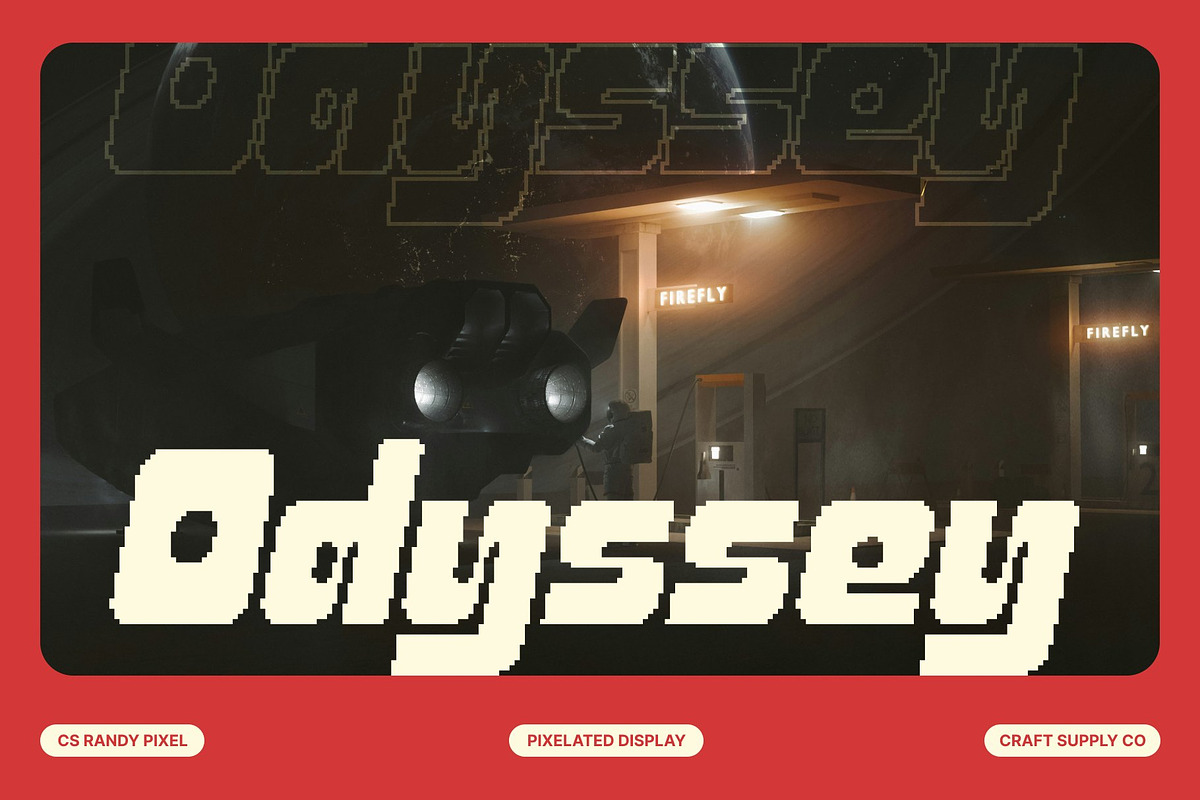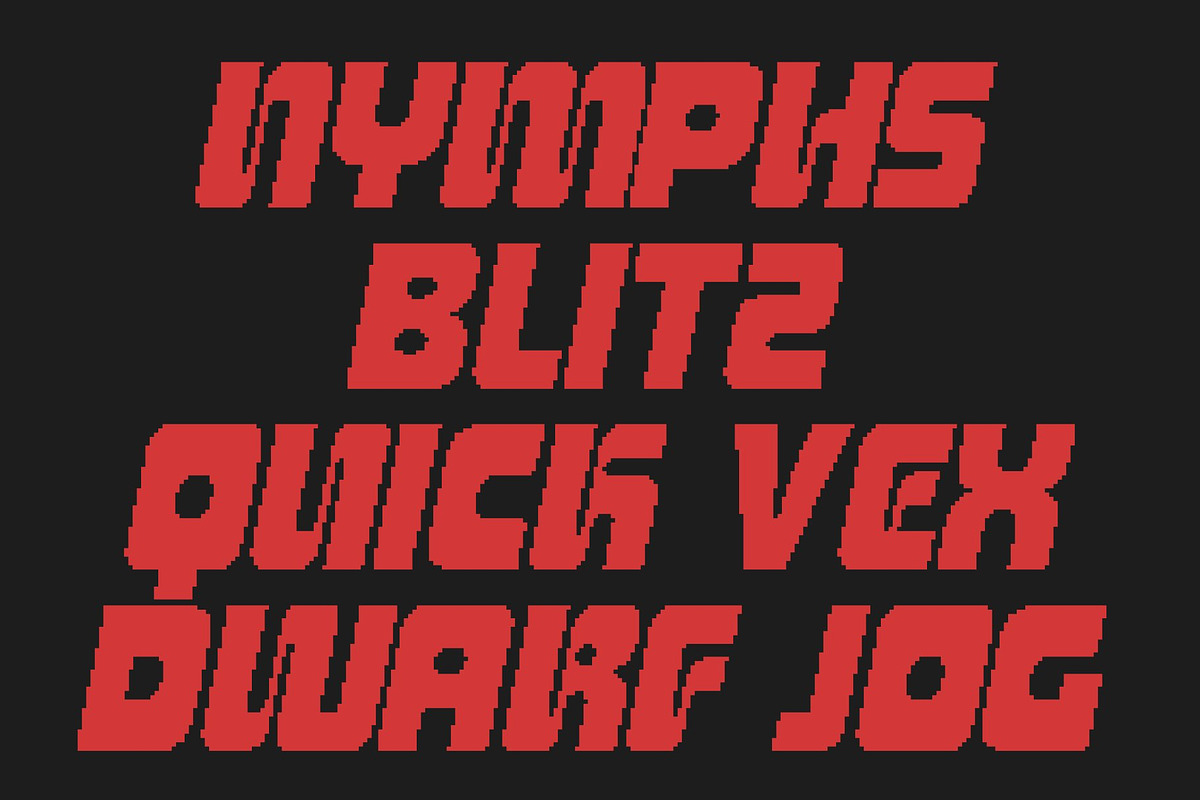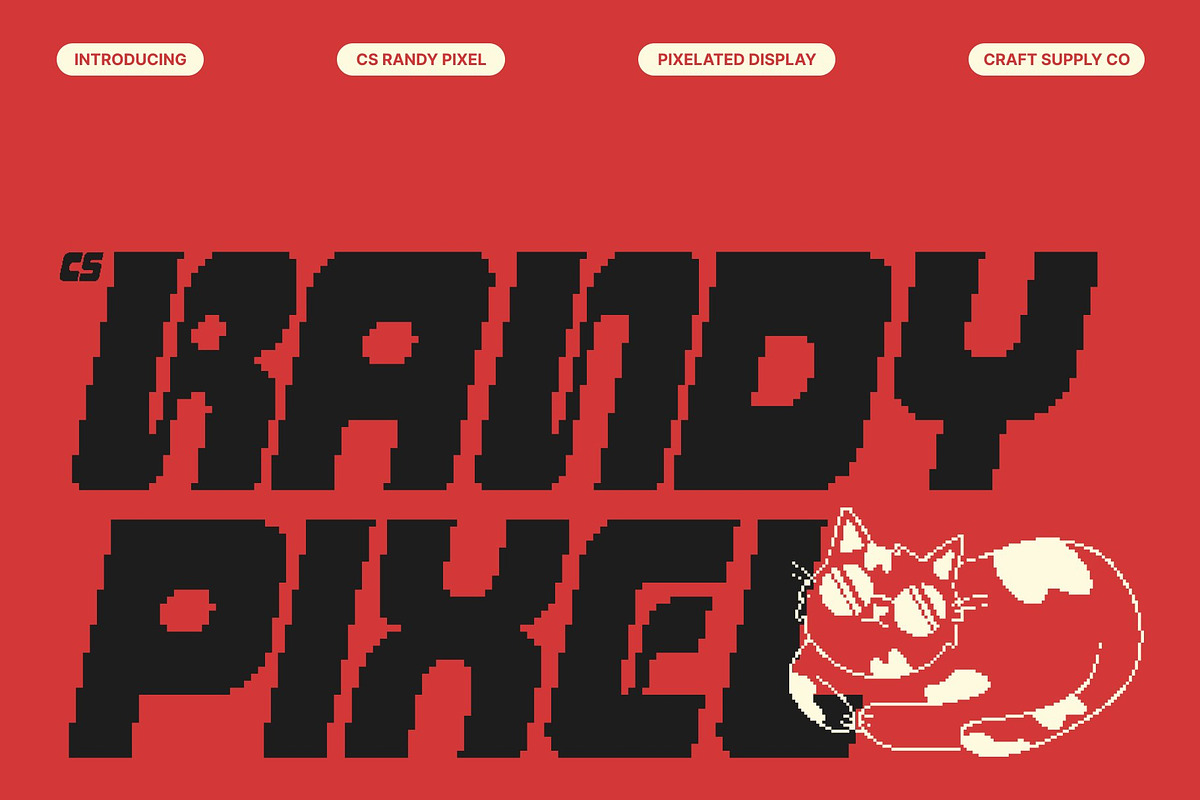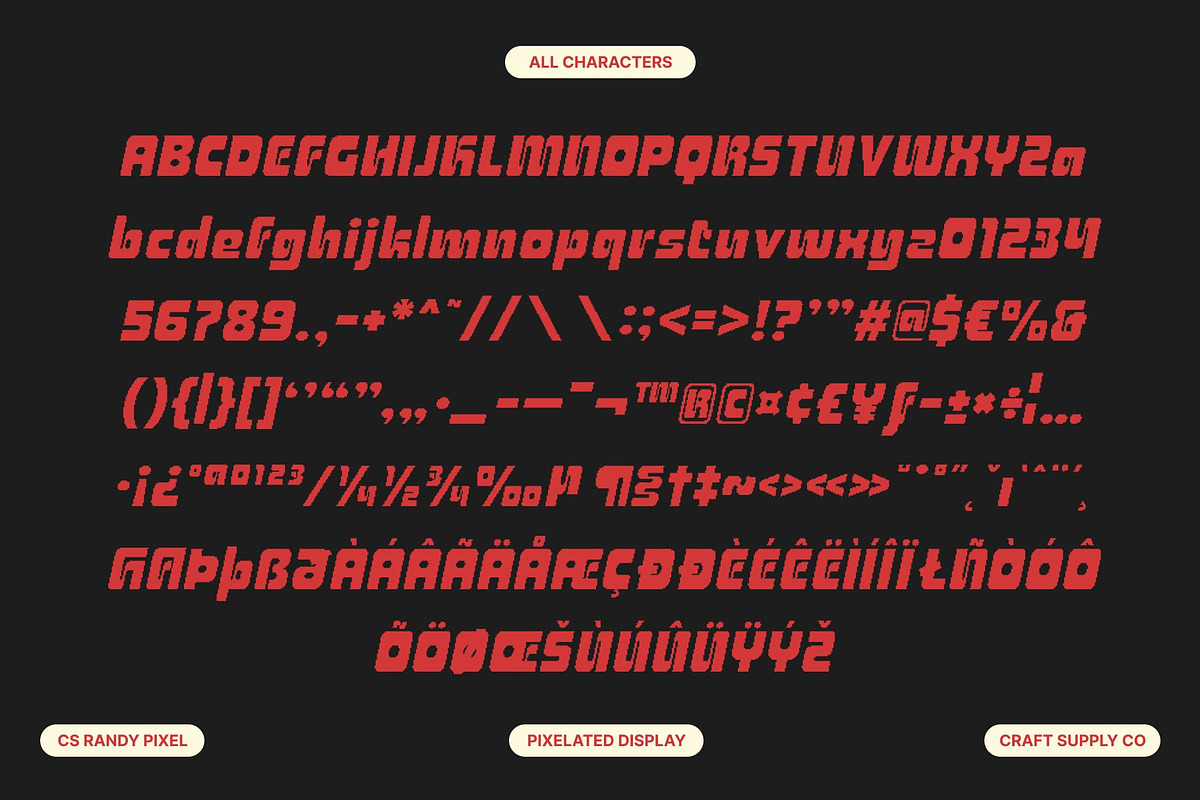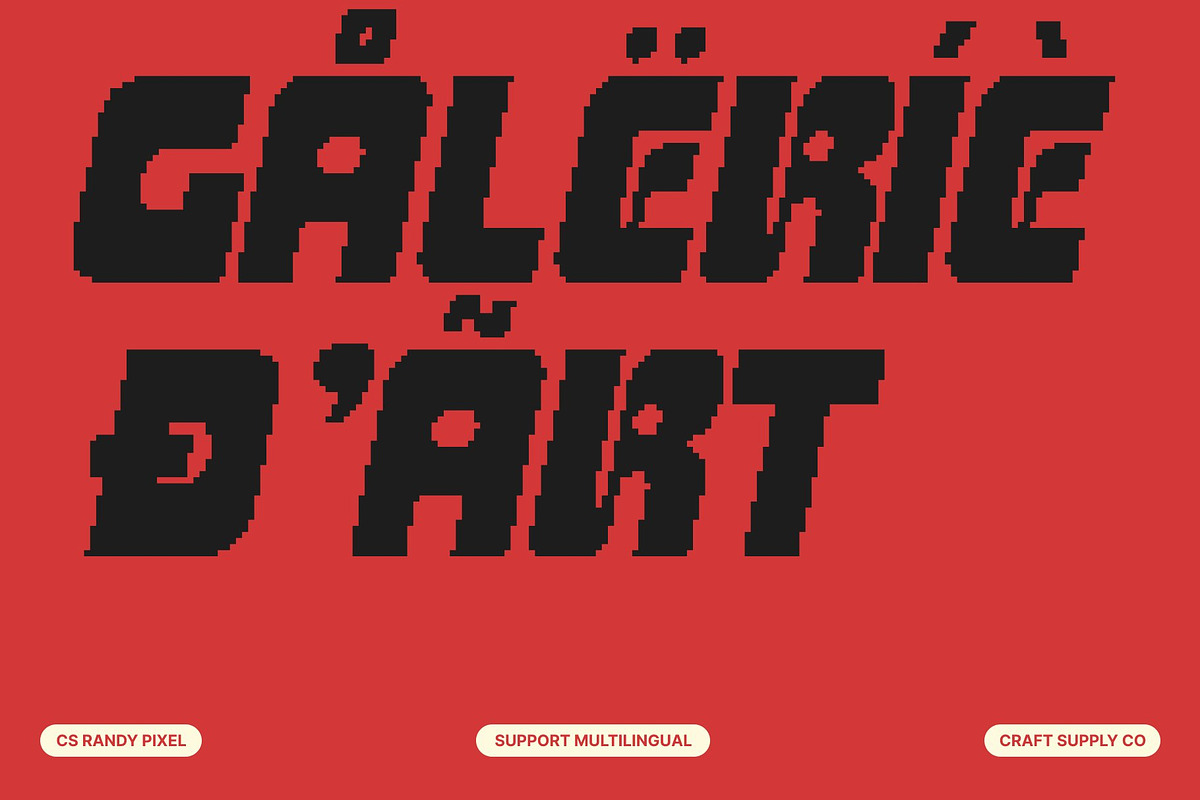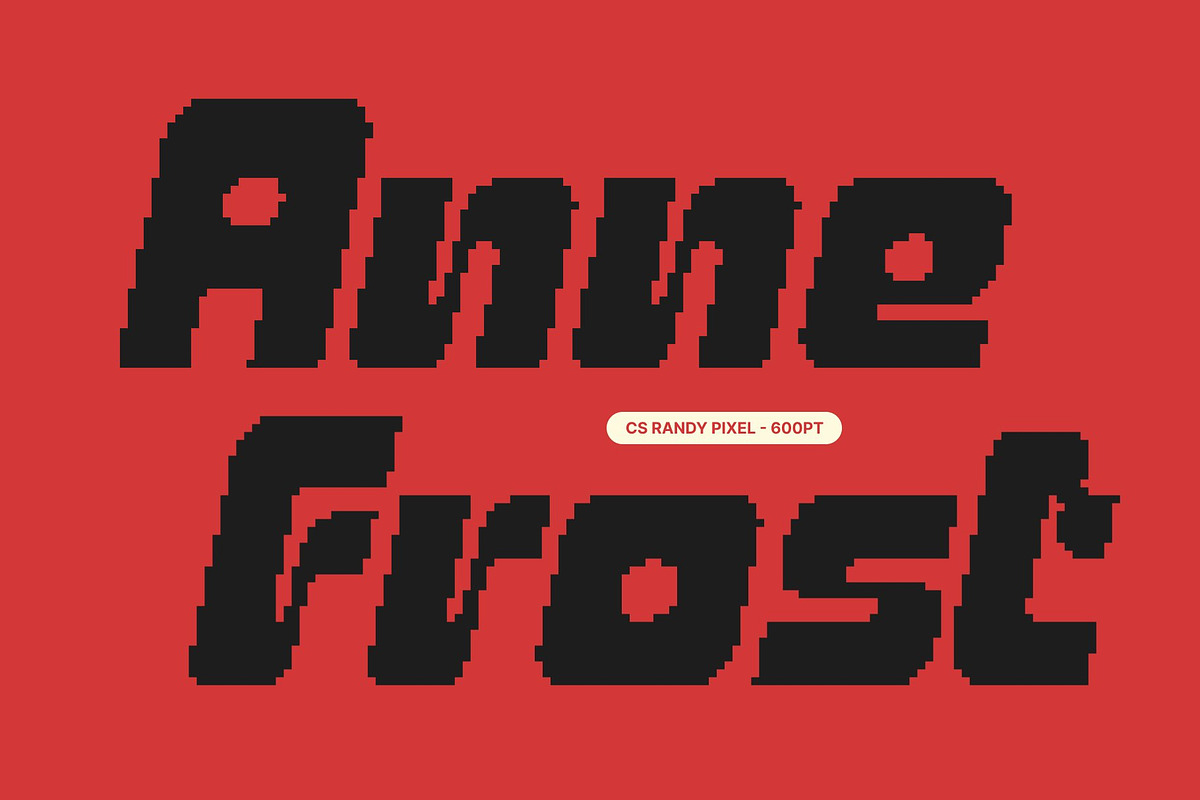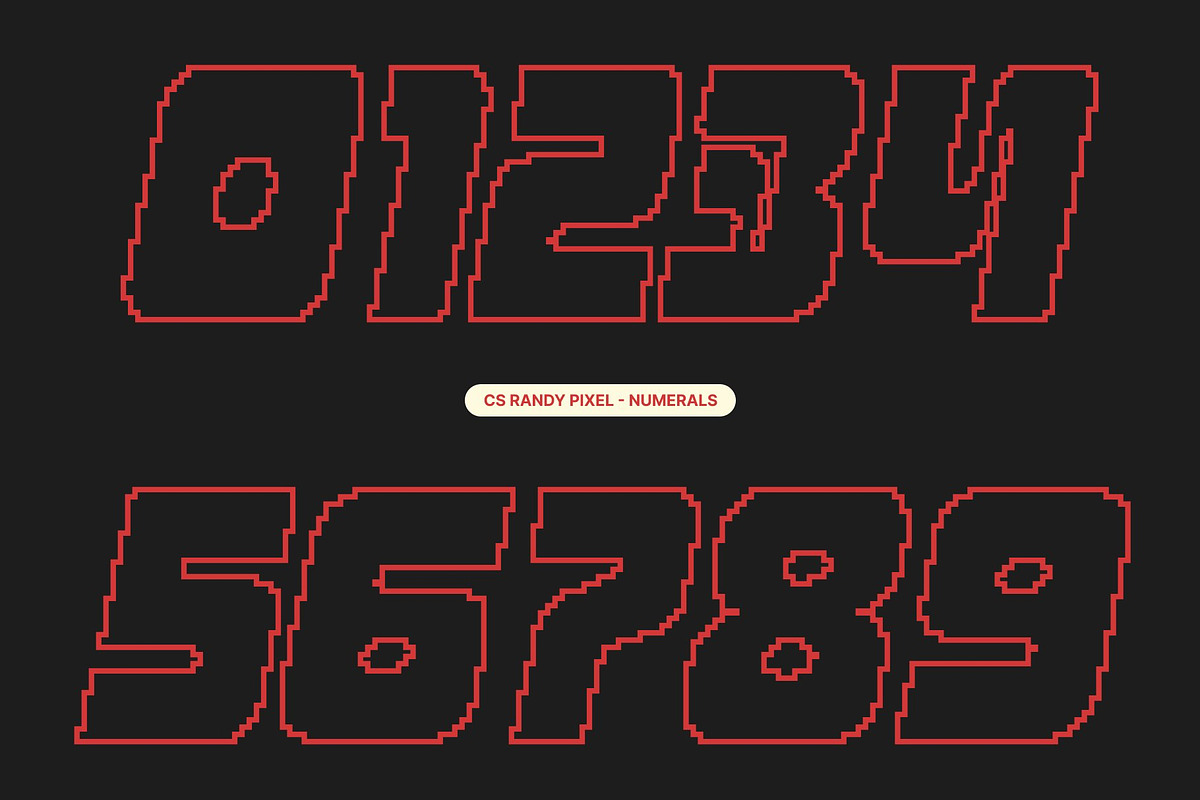
CS Randy Pixel
CS Randy Pixel – Bold Display Font with Futuristic Techno Style
Modern Design with Futuristic Energy This is a bold display font built with clean lines, strong geometry, and a striking pixel-based structure. Its modern design is infused with futuristic and Y2K aesthetics, blending digital nostalgia with a forward-looking attitude. Designed for high impact, this font ensures your typography stands out with confidence and clarity.
Pixel-Techno Structure for Bold Statements Defined by a techno-inspired framework and pixel precision, this font delivers a sharp, digital rhythm across every letterform. The structured geometry creates a powerful visual balance, while its pixel character adds a retro-tech edge reminiscent of early digital systems, sci-fi interfaces, and cyber visuals. This makes the font ideal for bold statements rooted in technology and innovation.
Perfect for Sci-Fi, Gaming, and Tech Branding From sci-fi game titles and cyberpunk visuals to tech branding and digital interfaces, this font adapts seamlessly across digital and print media. Its bold presence works perfectly for logos, UI elements, posters, and digital promotions, while its futuristic pixel tone enhances dystopian themes, virtual worlds, and immersive storytelling.
A Typeface Built for Digital Futures Blending modern professionalism with experimental Y2K pixel flair, this font is a versatile display font for forward-thinking designers. Whether used in gaming, branding, digital art, or futuristic visuals, it delivers strong structure, digital attitude, and eye-catching intensity perfect for projects that live at the intersection of technology, nostalgia, and the future.
- CS Randy Pixel Regular
- CS Randy Pixel Outline